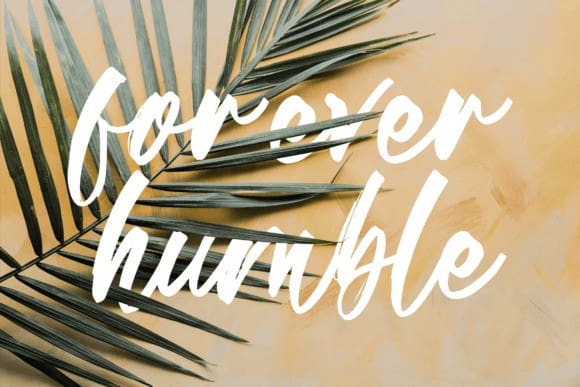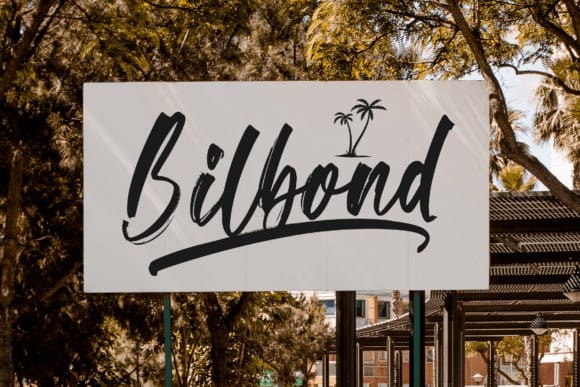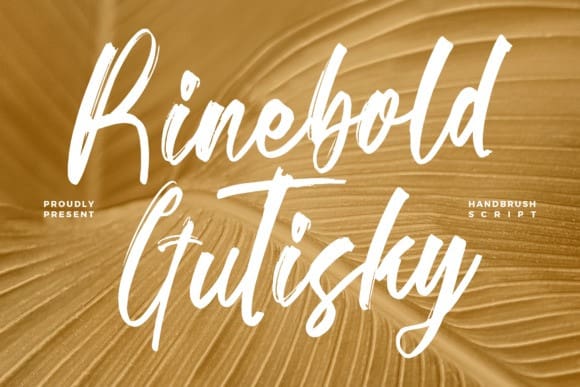
Rinebold Gutisky Font
Rinebold Gutisky Font is a delicate and elegant handwritten font. Its distinct and well balanced letters make this font a masterpiece. Fall in love with its incredibly versatile style and use it to create spectacular designs!